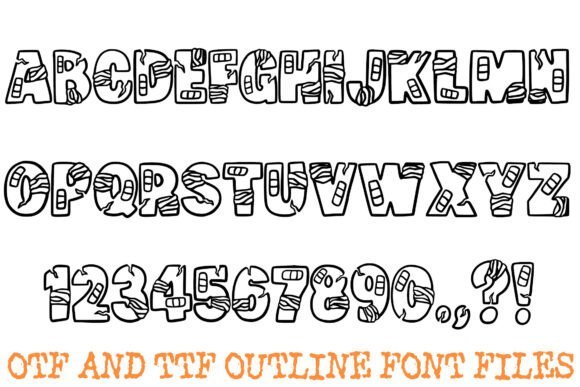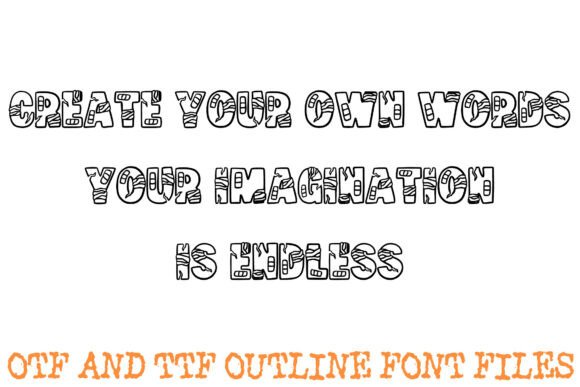
Introduction to Bandage Bump Font
Give your creative projects a tough but playful edge with the Bandage Bump Font.
This hand-drawn display alphabet features bold, blocky characters that appear β€œinjured,” complete with realistic bandage wraps and textured cracks throughout each letter and number It is the perfect choice for β€œget well soon” cards, medical-themed branding, quirky Halloween stickers, and high-energy social media graphics.
Why Choose Bandage Bump Font?
Bandage Bump Font offers exceptional quality and versatility, making it a valuable addition to your design toolkit. Whether you’re creating for personal projects or commercial use, Bandage Bump Font delivers professional results.